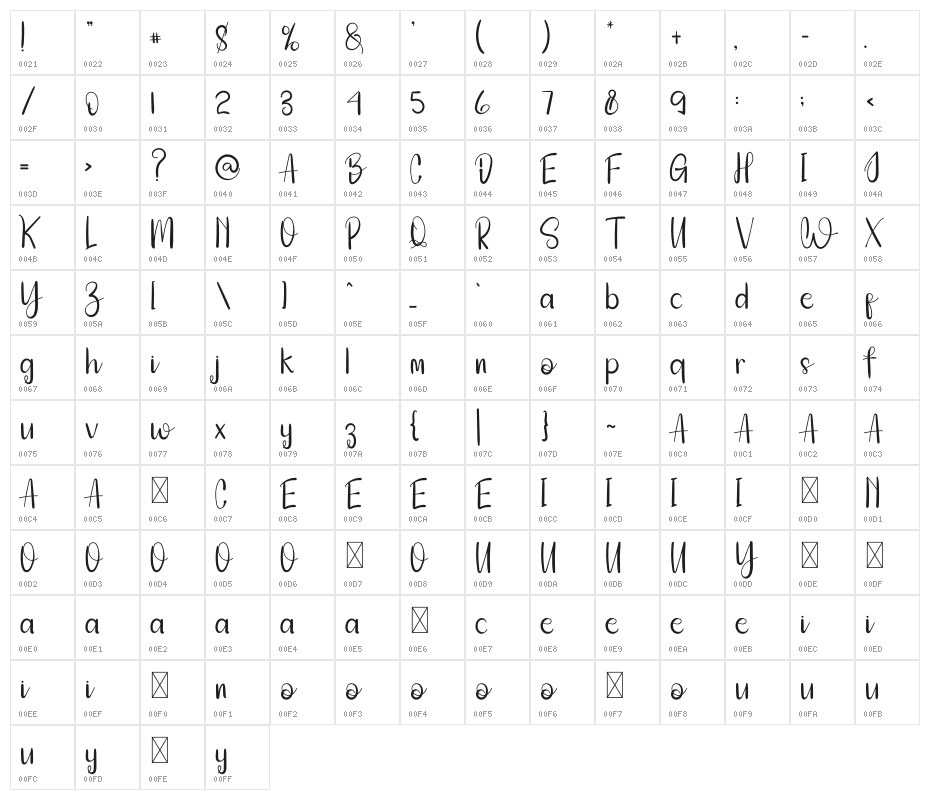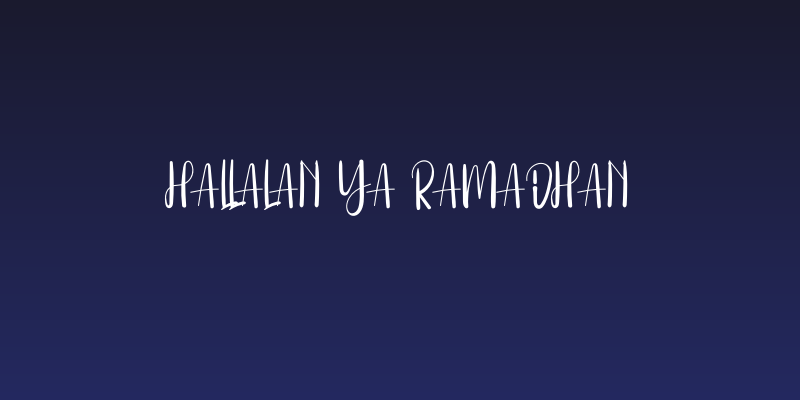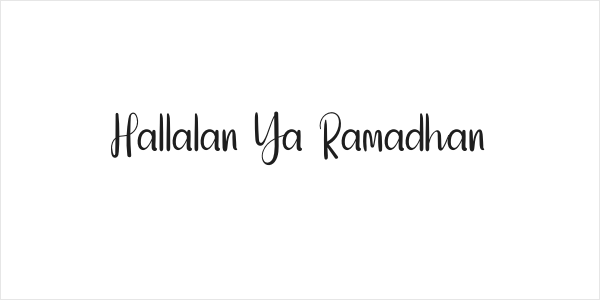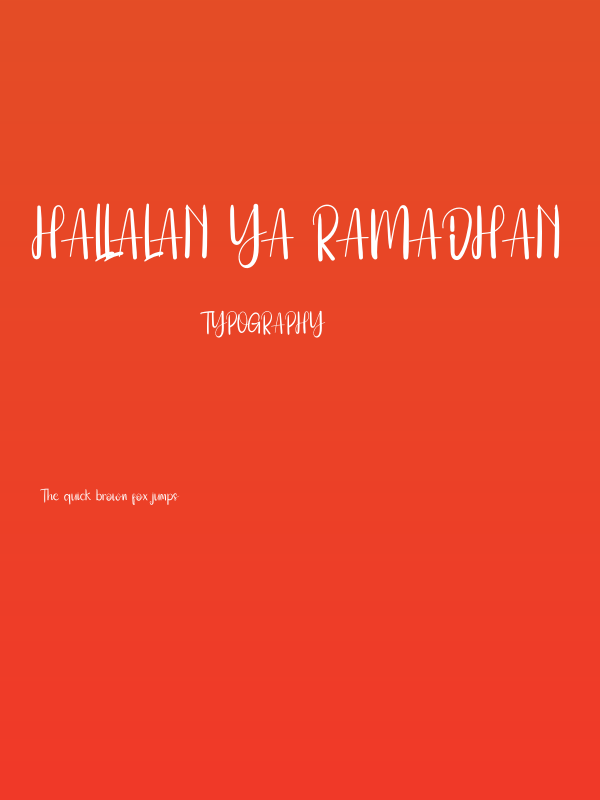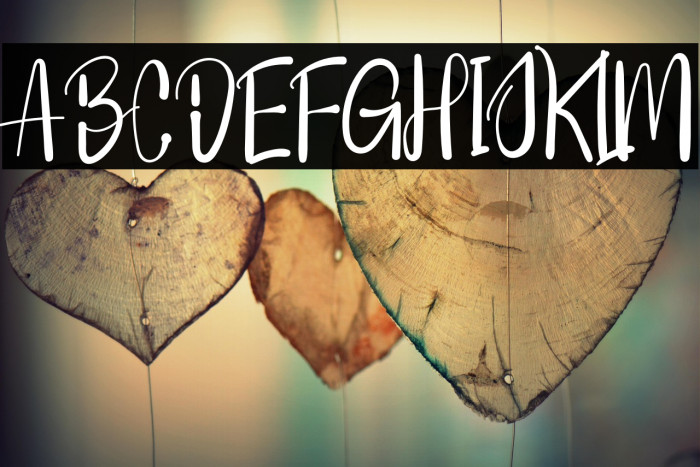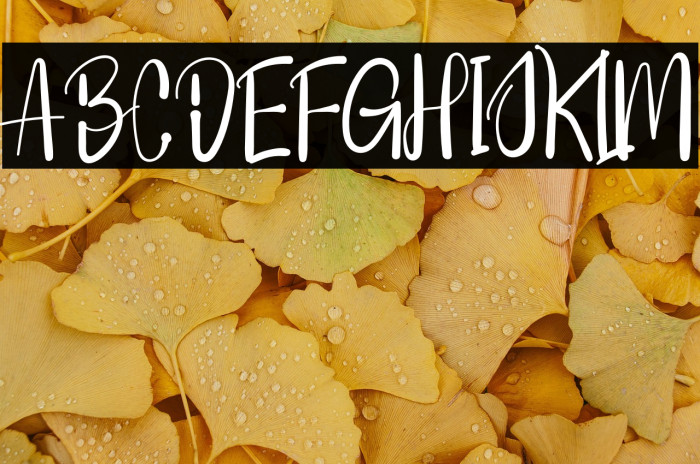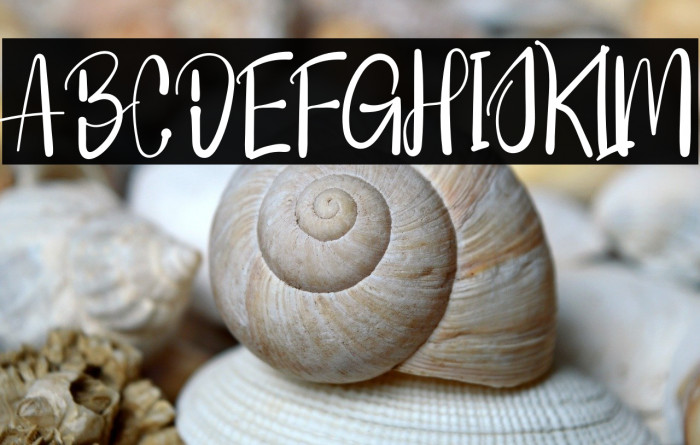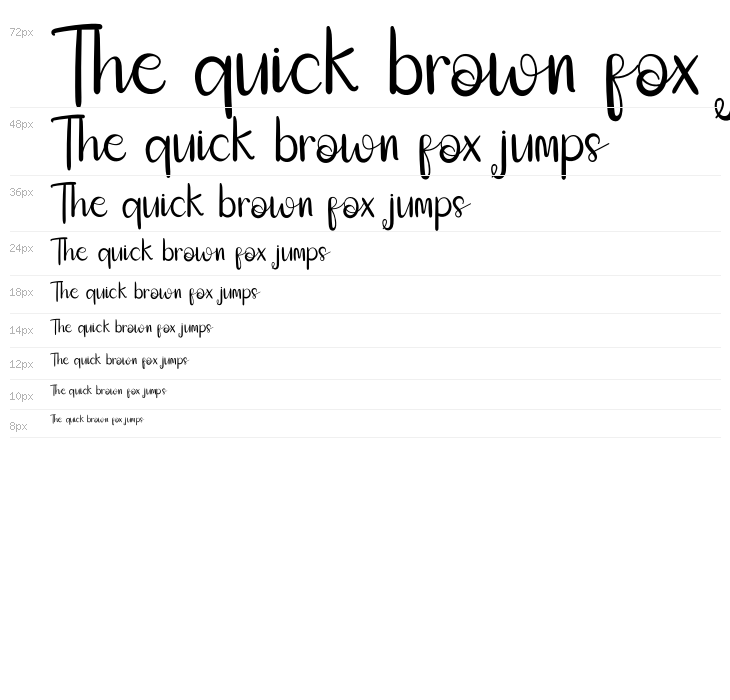
Hallalan Ya Ramadhan Font
Hallalan Ya Ramadhan Description
This font features a playful and whimsical style with a handwritten appearance. The letters are characterized by their fluid, flowing lines and varying stroke widths, giving them a lively and dynamic feel. The uppercase letters are tall and slightly narrow, while the lowercase letters maintain a consistent height, contributing to a harmonious look. The numbers and special characters are designed to match the overall aesthetic, with rounded edges and a friendly demeanor. This font's unique style makes it suitable for creative and informal projects.
| Proposed Projects | Ideal for greeting cards, invitations, children's books, and creative branding. |